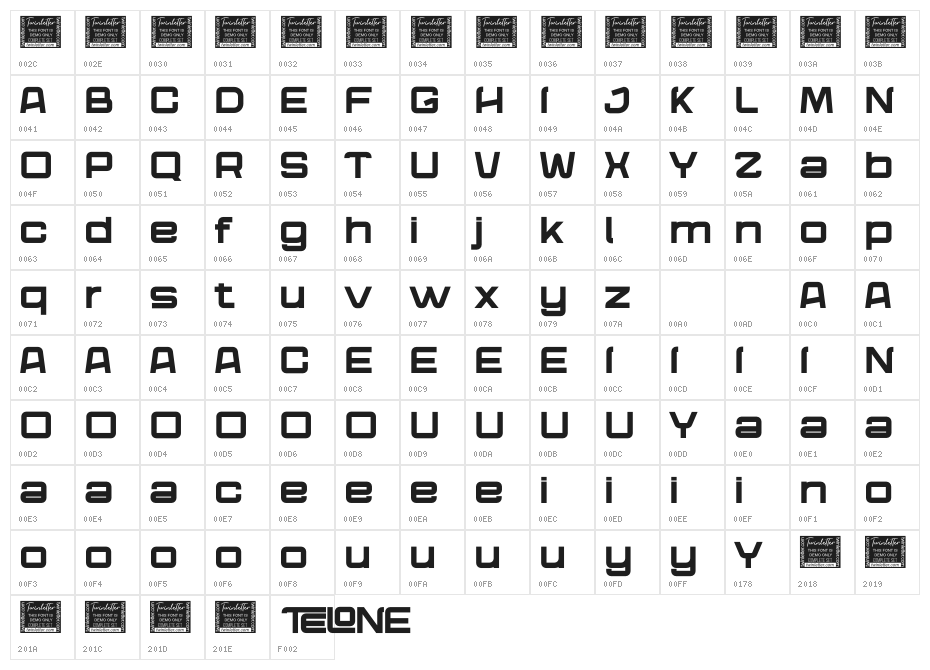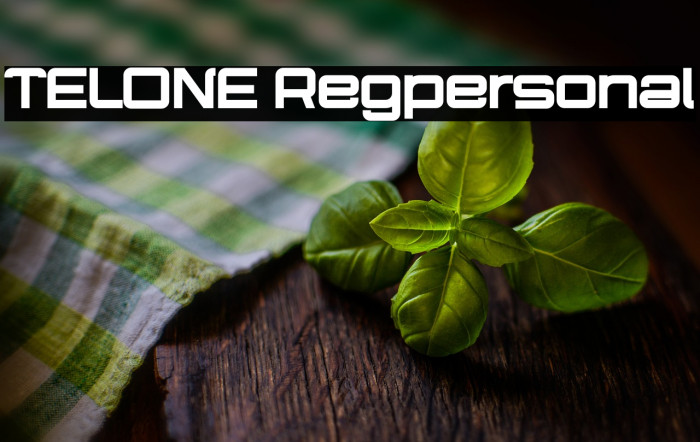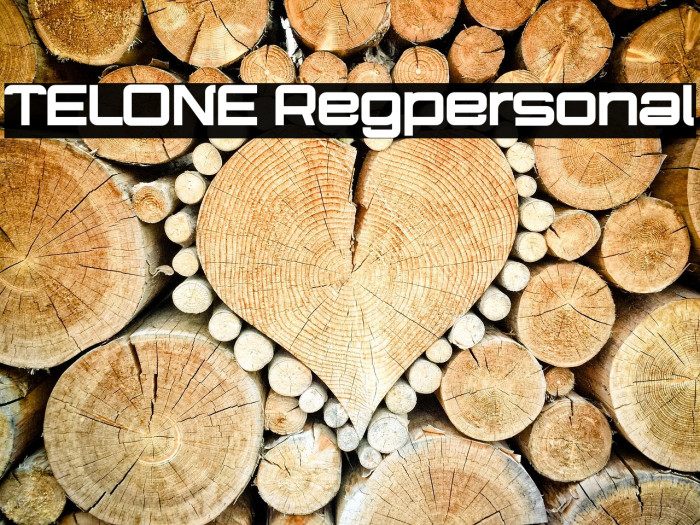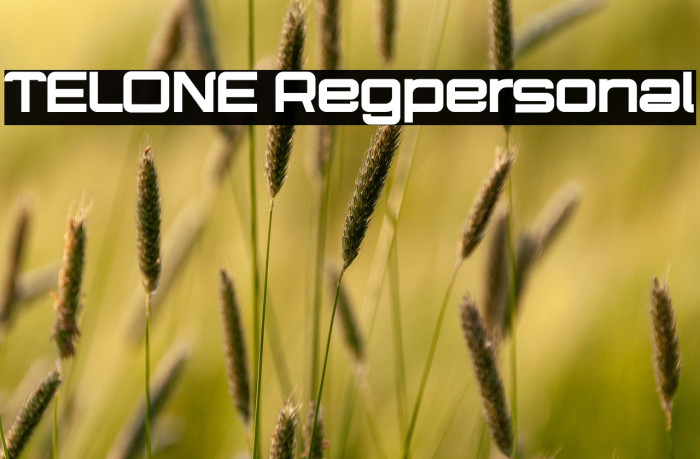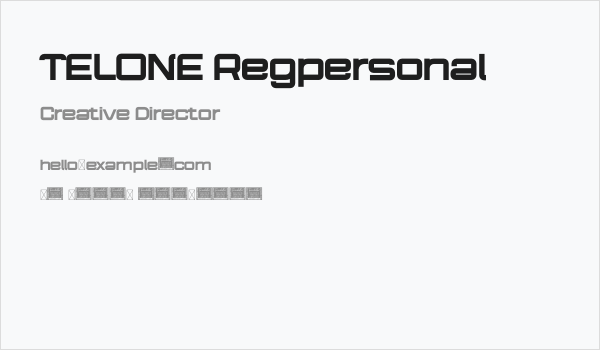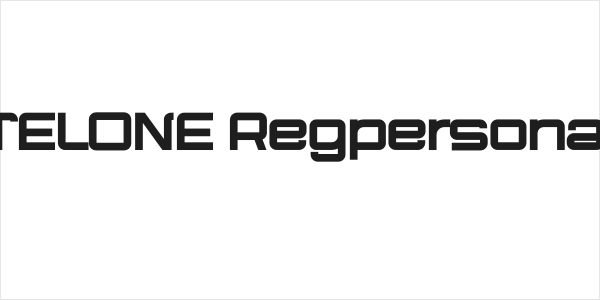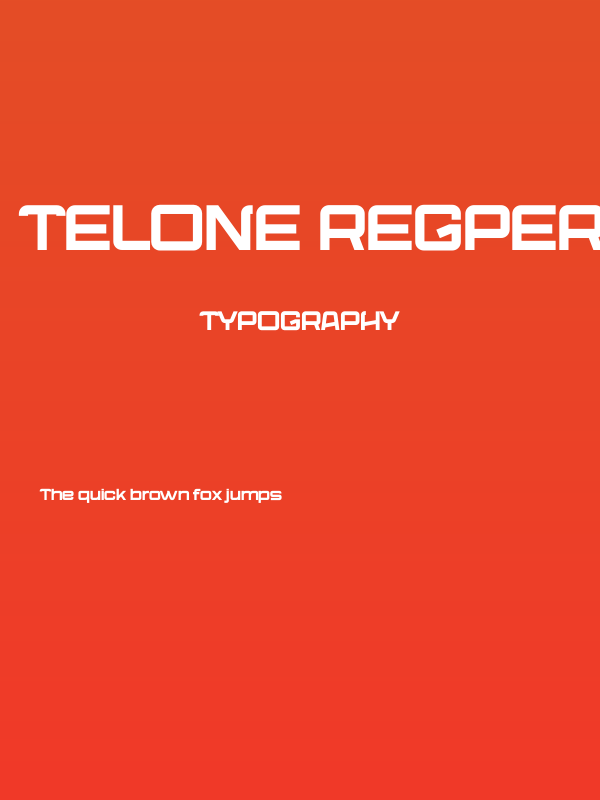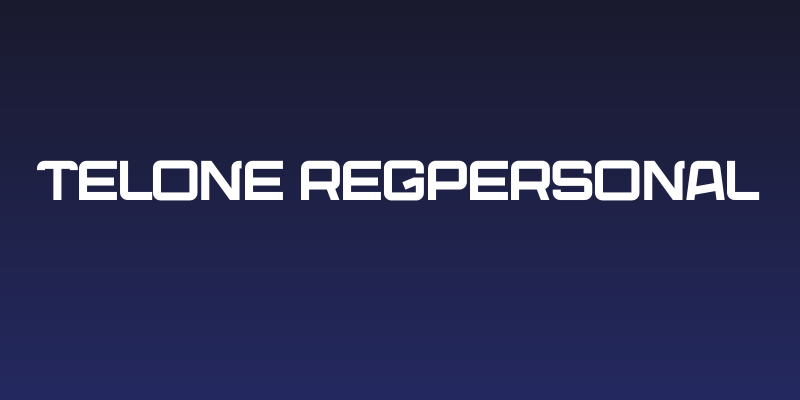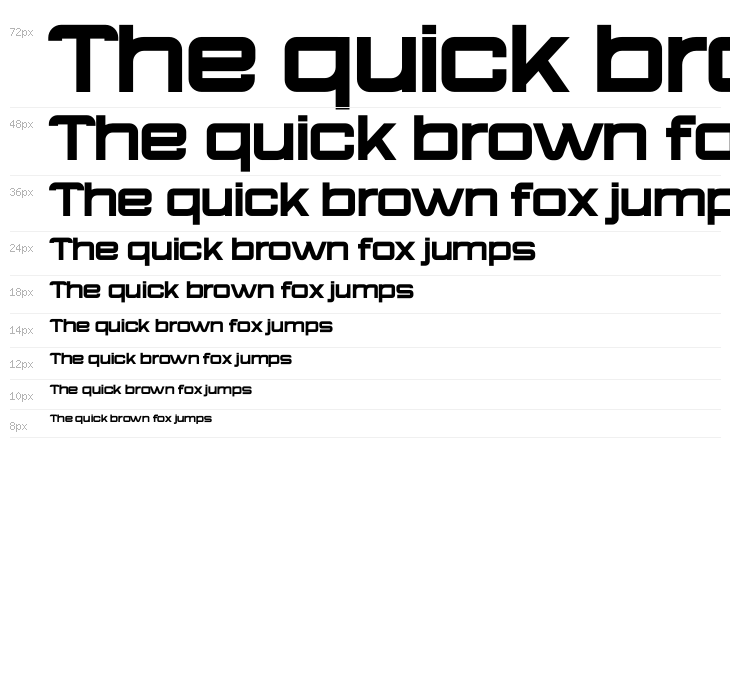
TELONE Regpersonal Font
TELONE Regpersonal Description
This font features a bold, geometric design with a modern aesthetic. The characters are constructed with thick, uniform strokes that create a strong visual impact. The uppercase letters have a squared-off appearance with sharp angles, while the lowercase letters maintain a consistent height and width, providing a cohesive look. The font's design is clean and minimalistic, making it suitable for various applications where clarity and emphasis are needed. Its structured form and bold presence make it ideal for headlines and display purposes.